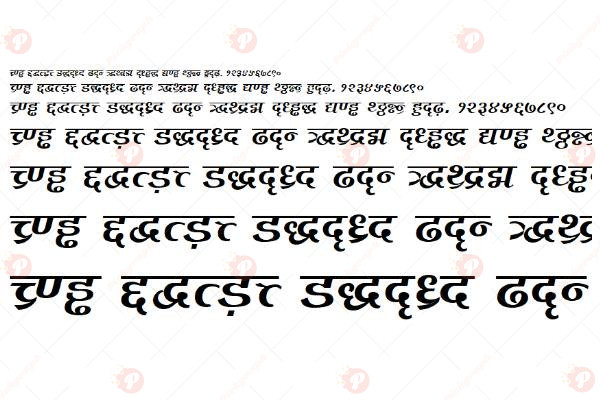
The Ganesh Bold Font is a powerful and elegant typeface designed to make a strong visual impact. With its bold strokes and traditional-inspired design, this font is perfect for headlines, posters, banners, cultural projects, logos, and branding.
Whether you’re working on digital media or print designs, Ganesh Bold ensures clarity, strength, and sophistication in every use.
Style: Bold / Traditional / Display Typeface
Perfect for: Headlines, Posters, Banners, Logos, Cultural & Branding Projects
Add strength and elegance to your typography with the Ganesh Bold Font.
| Optimum Size | Large (Display / Poster) |